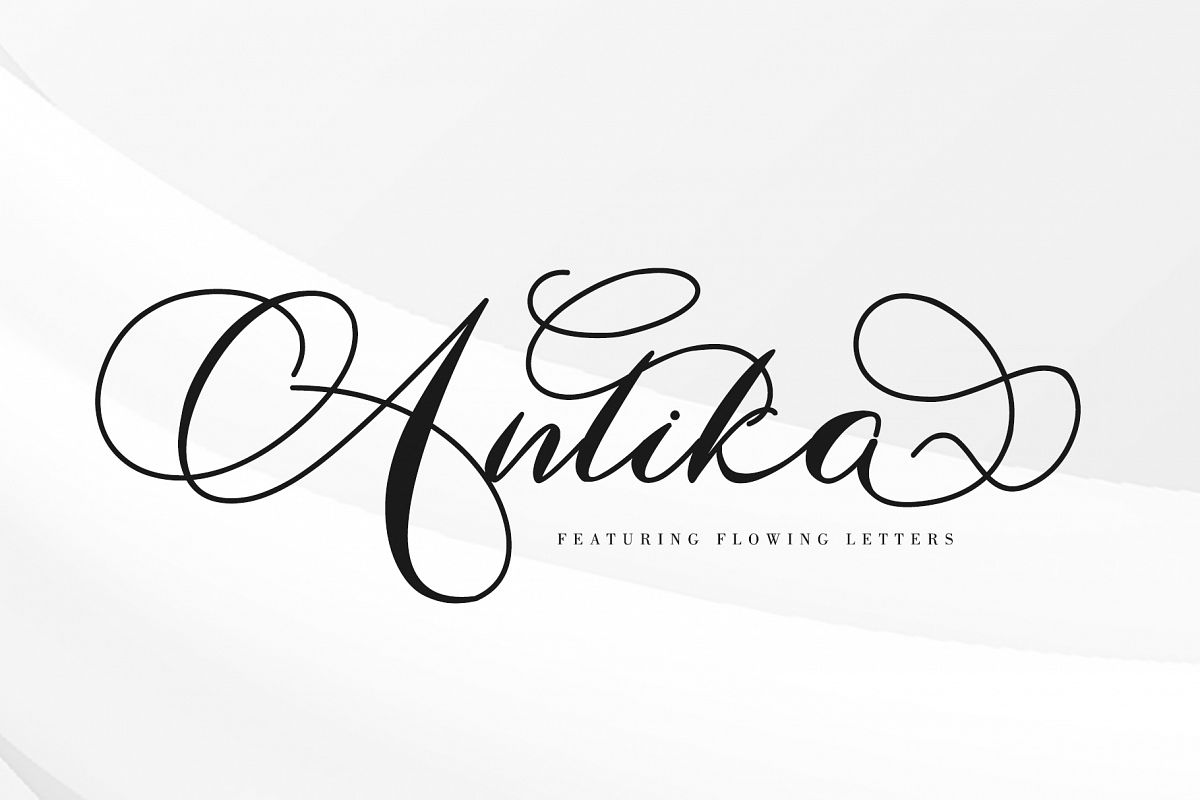
Antika is a beautiful modern script font featuring flowing
letters. It will add a romantic touch to any crafting project!
- Style in
this font include: Regular & Italic
- Many Features: Ligature, titling & Swash